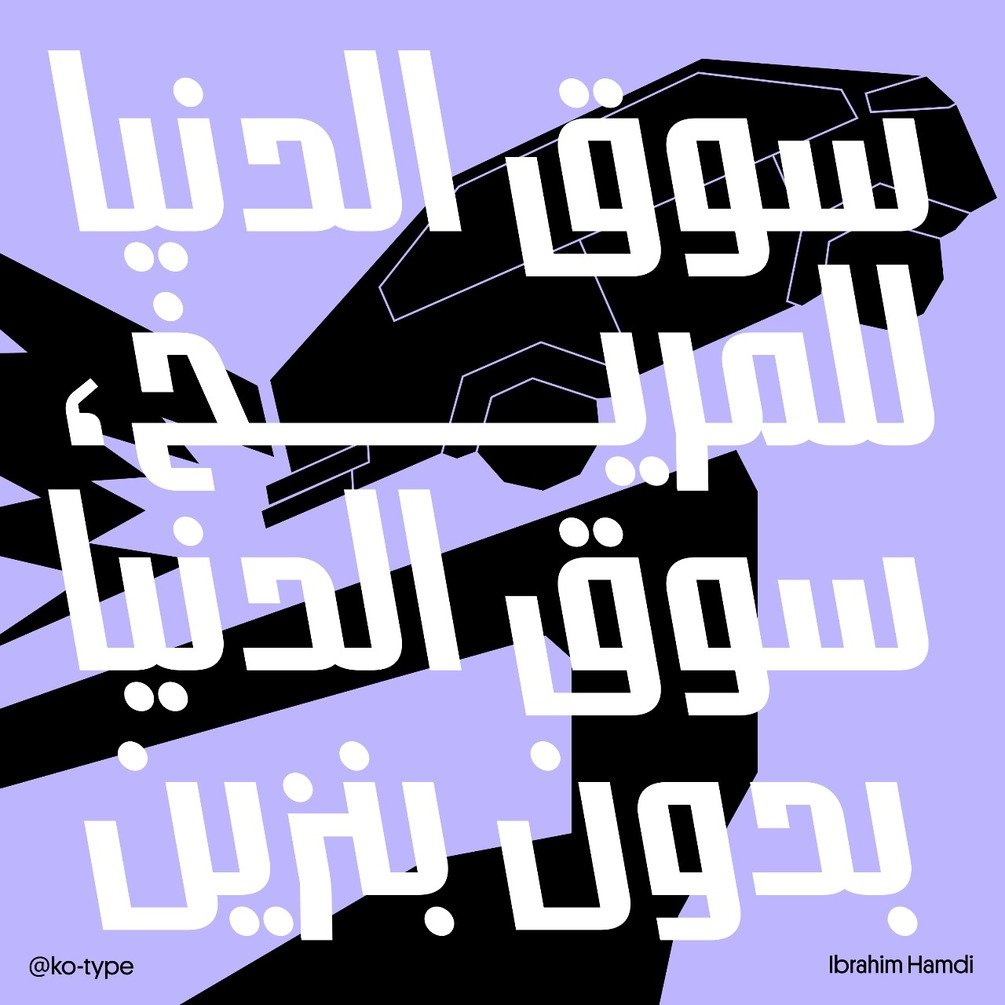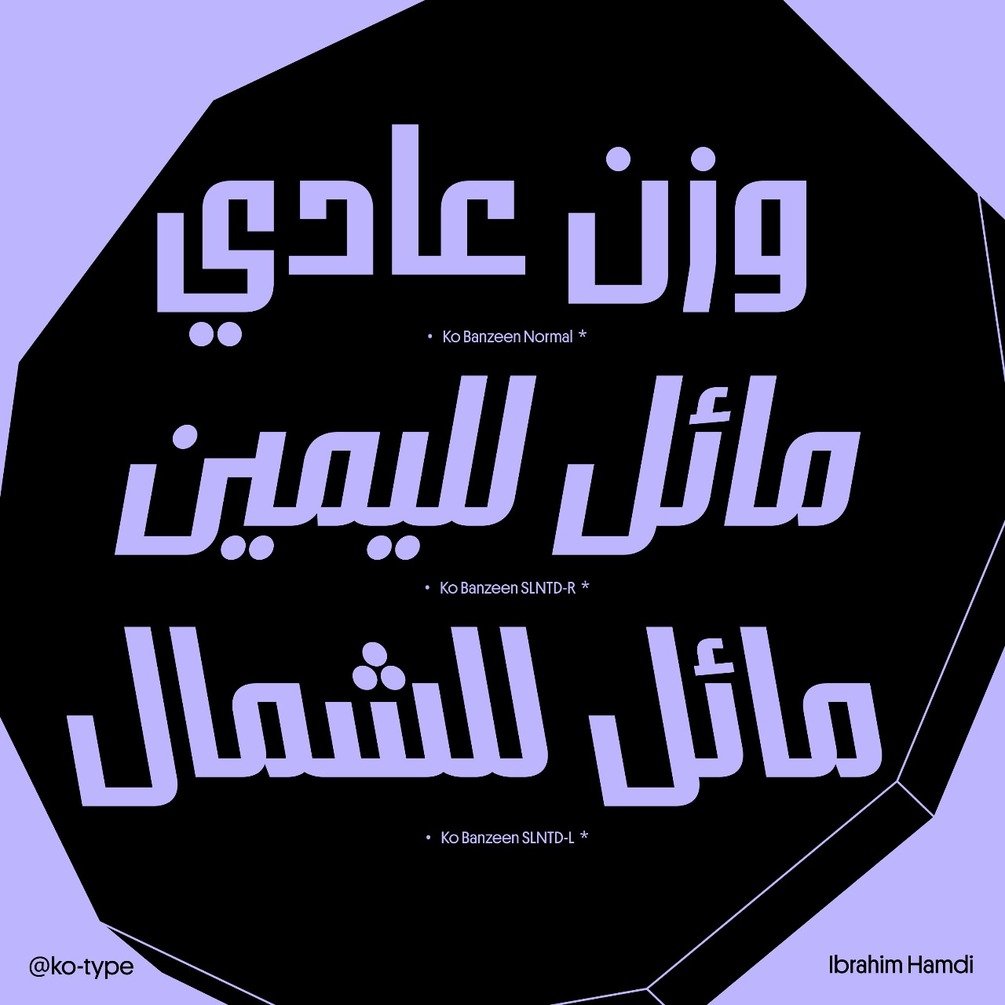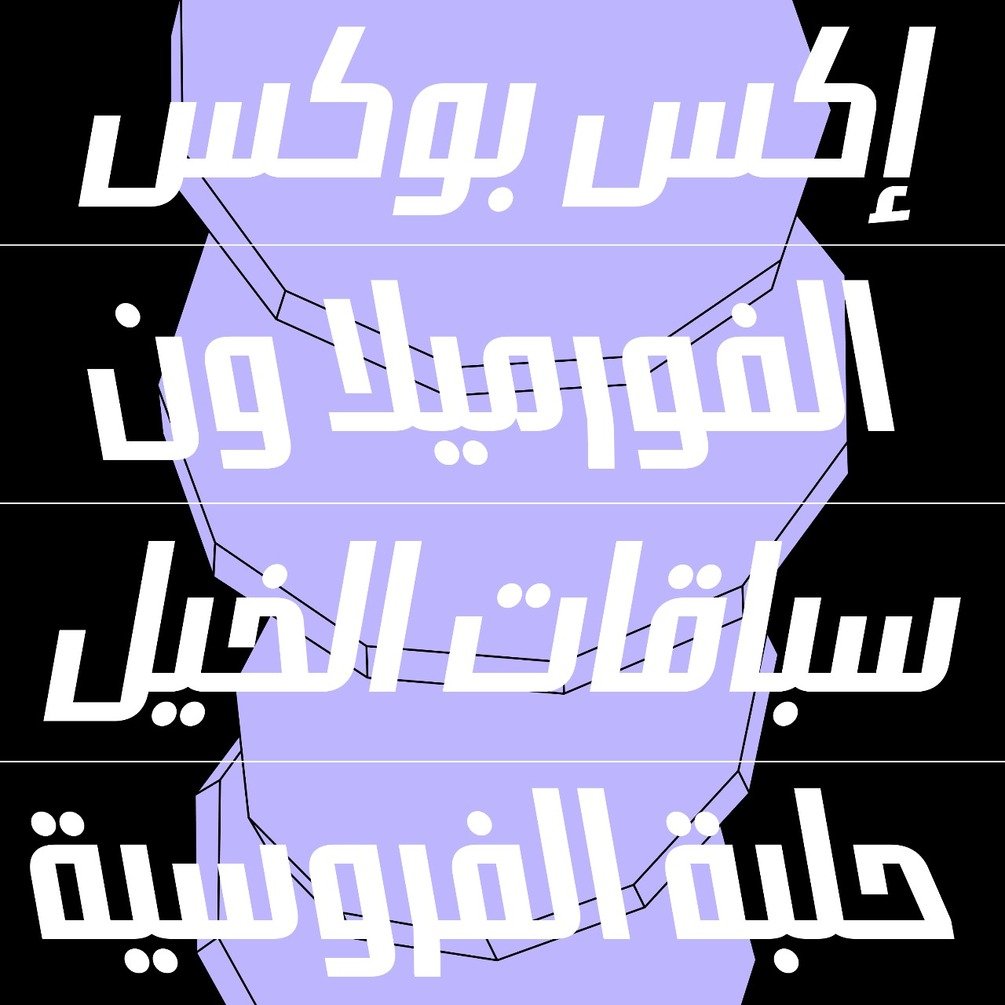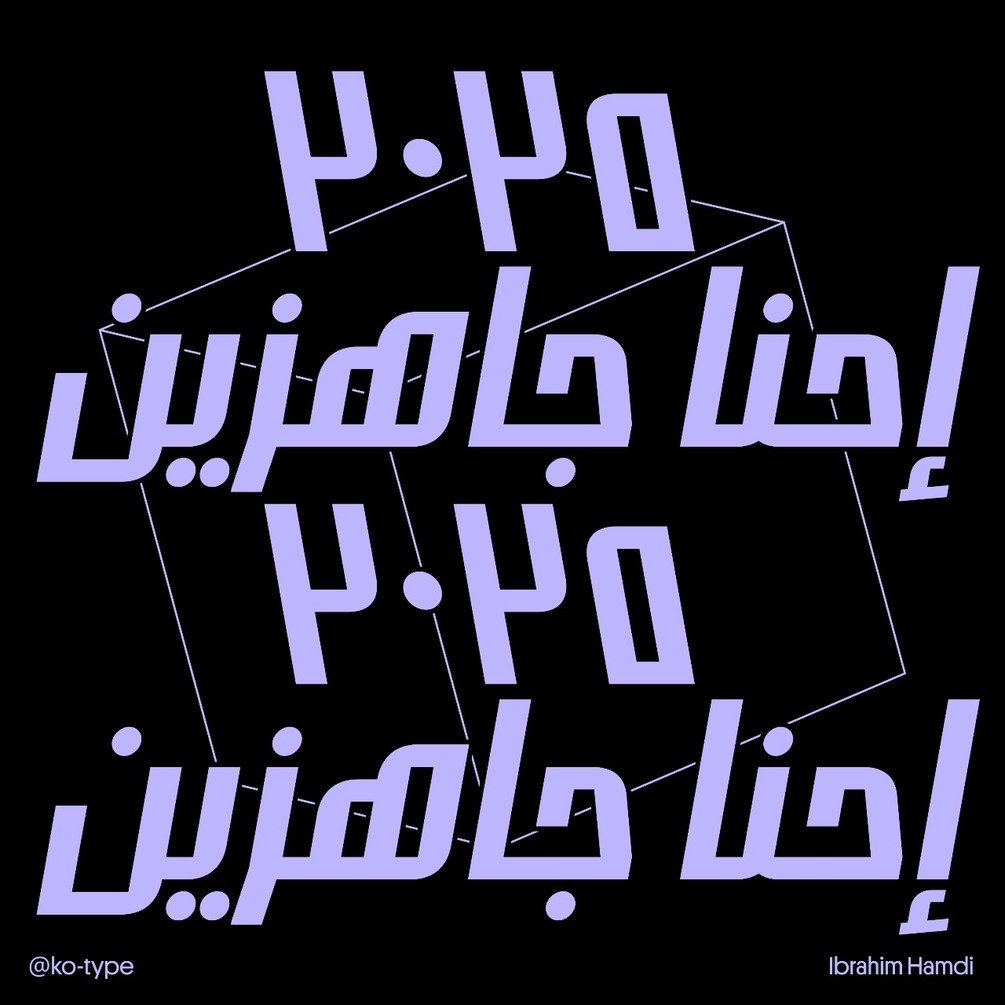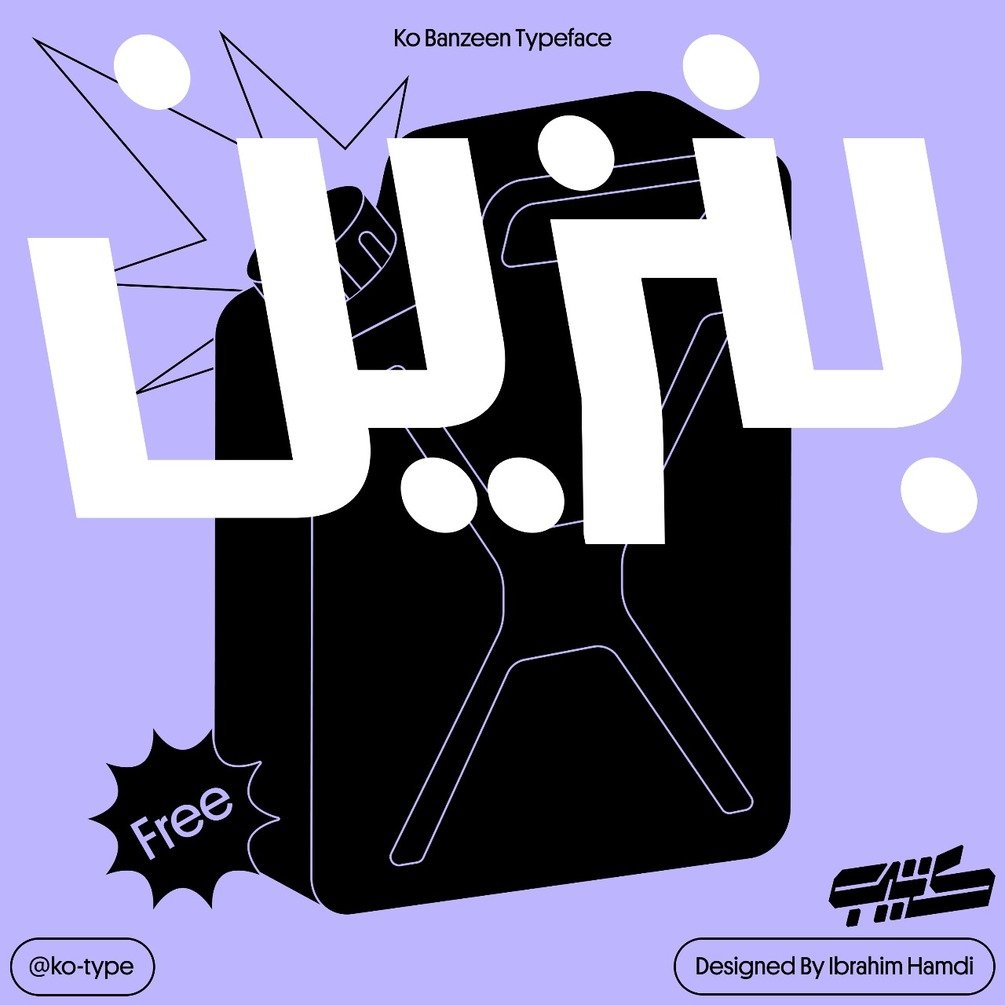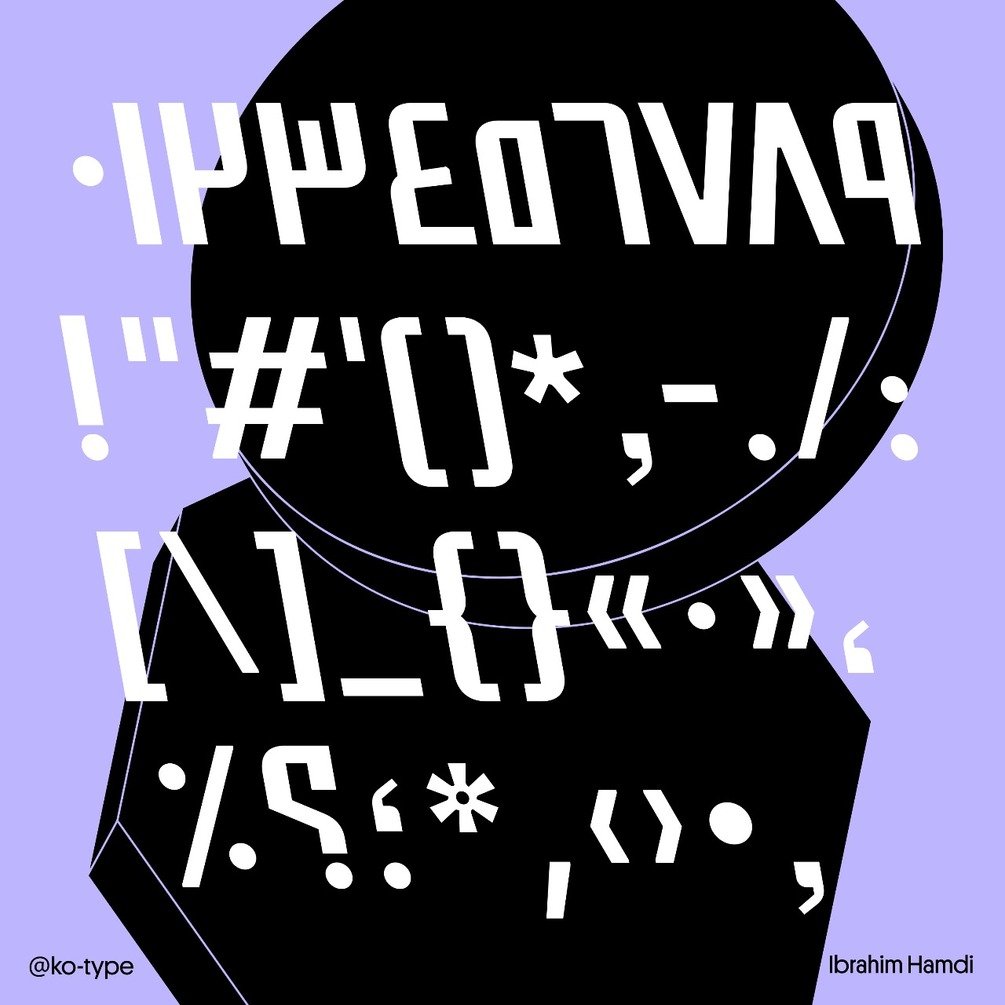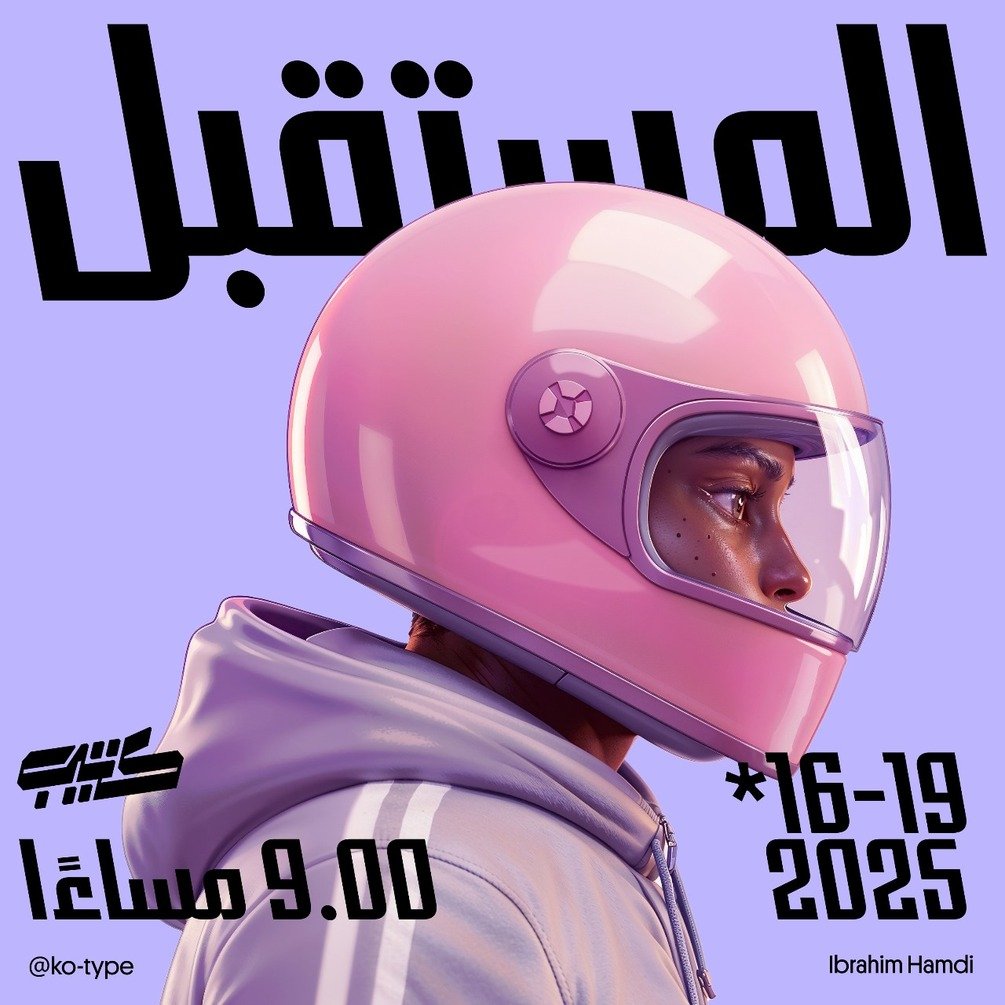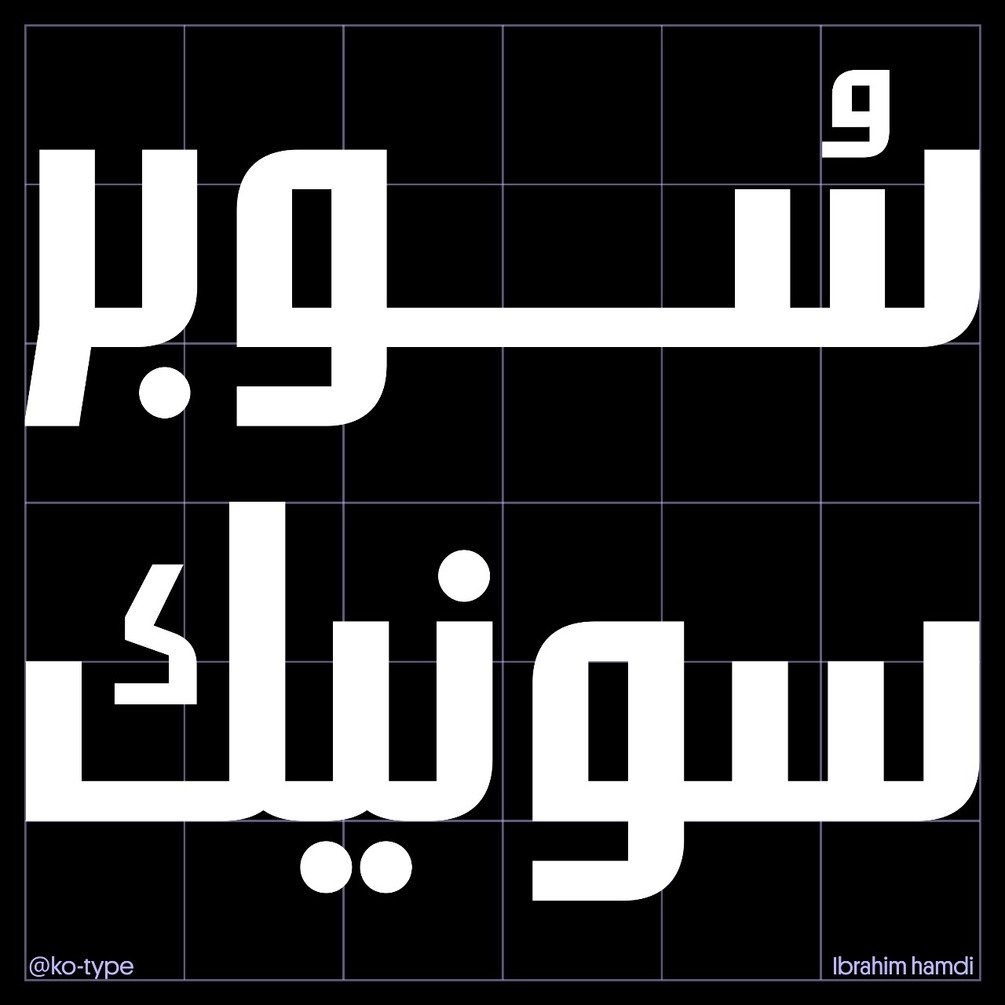
Banzeen Typeface
Banzeen typeface
Banzeen is a free-to-use typeface, that comes in three styles, slanted to right left, and straight.
Sans Arabic typeface
Ibrahim Hamdi
Arabic
Contextual Alternates, Discretionary Ligatures, Required Ligatures.